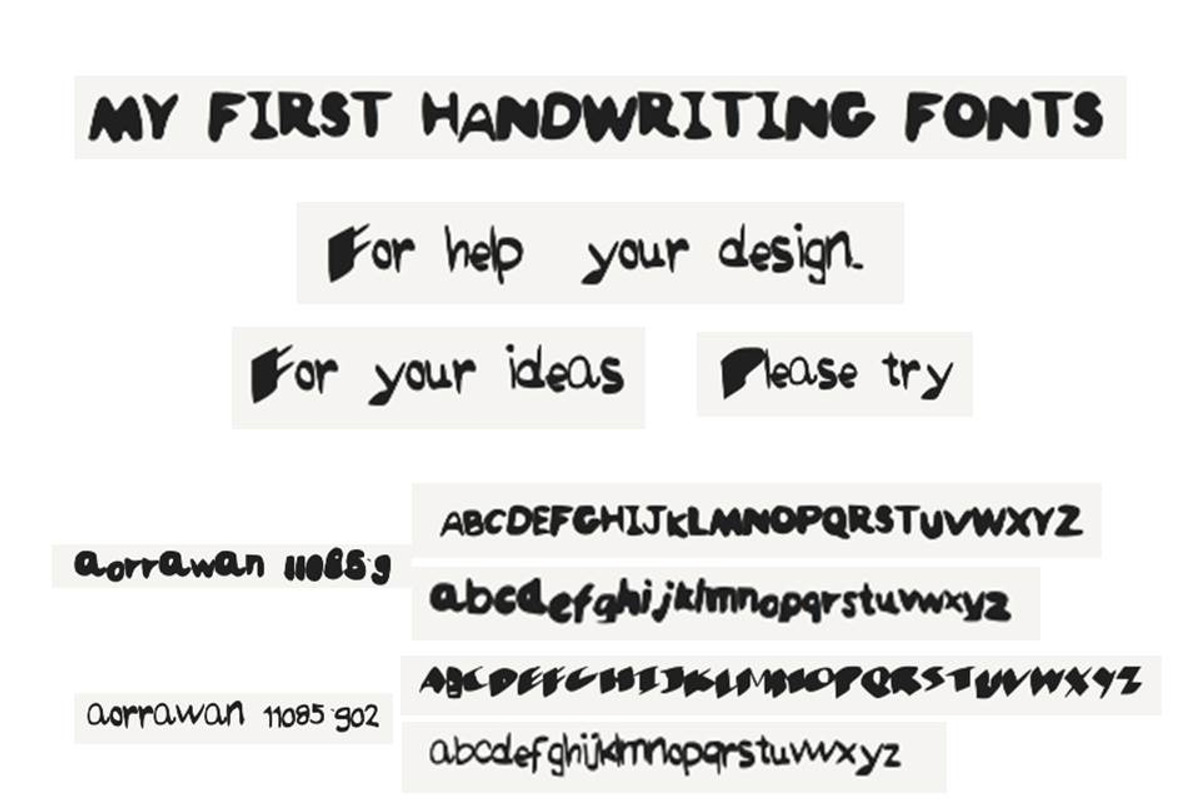
aorrawan11085902 FONTS
aorrawan11085902 FONTS by S.Aorrawan is a font selected for branding, posters, packaging, typography.
Why aorrawan11085902 FONTS is worth a look
aorrawan11085902 FONTS by S.Aorrawan fits naturally into Branding, posters, packaging, typography.